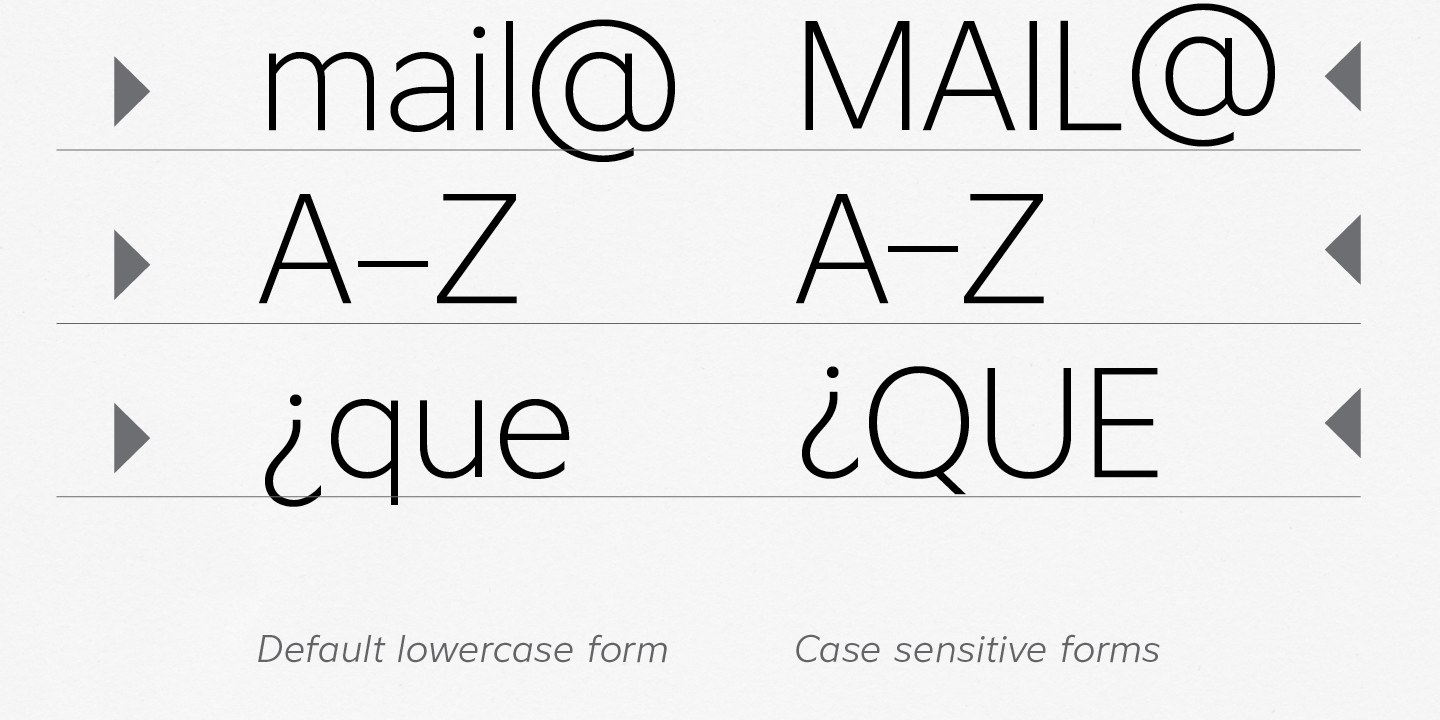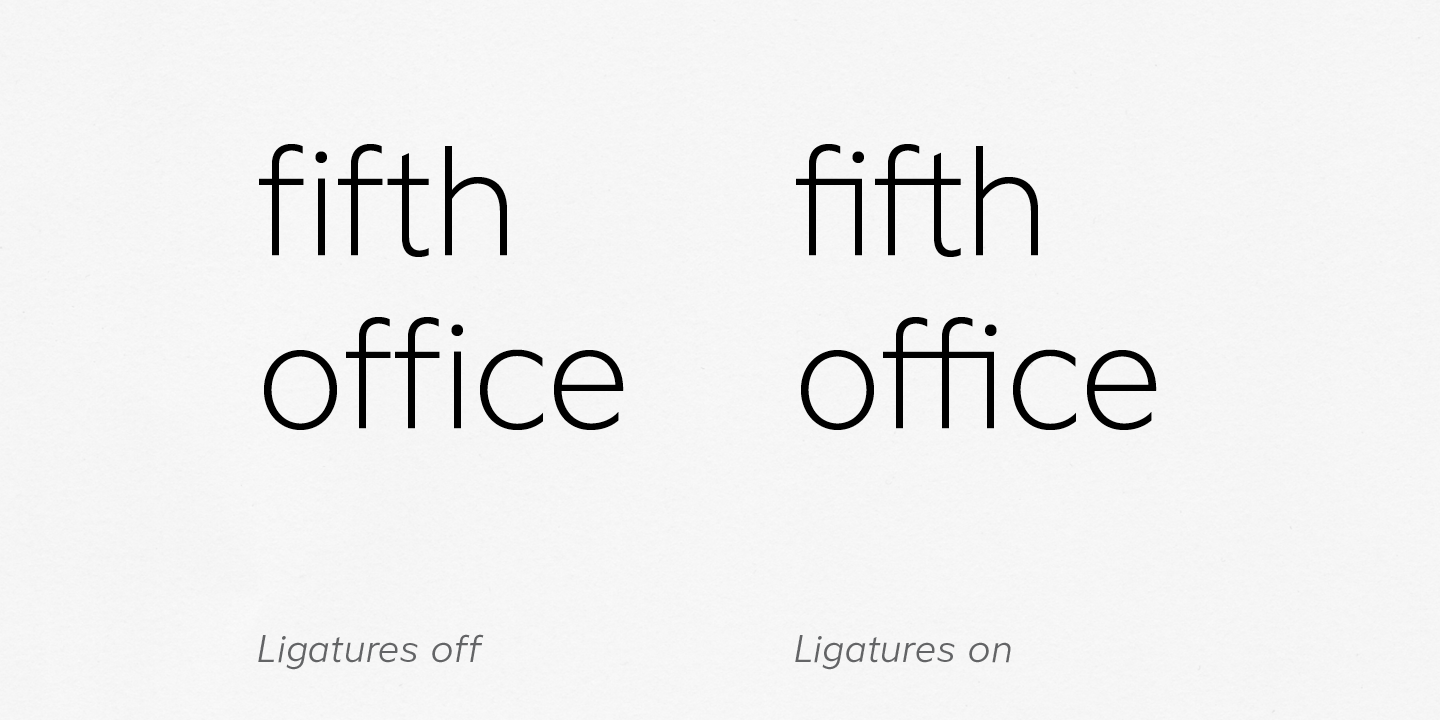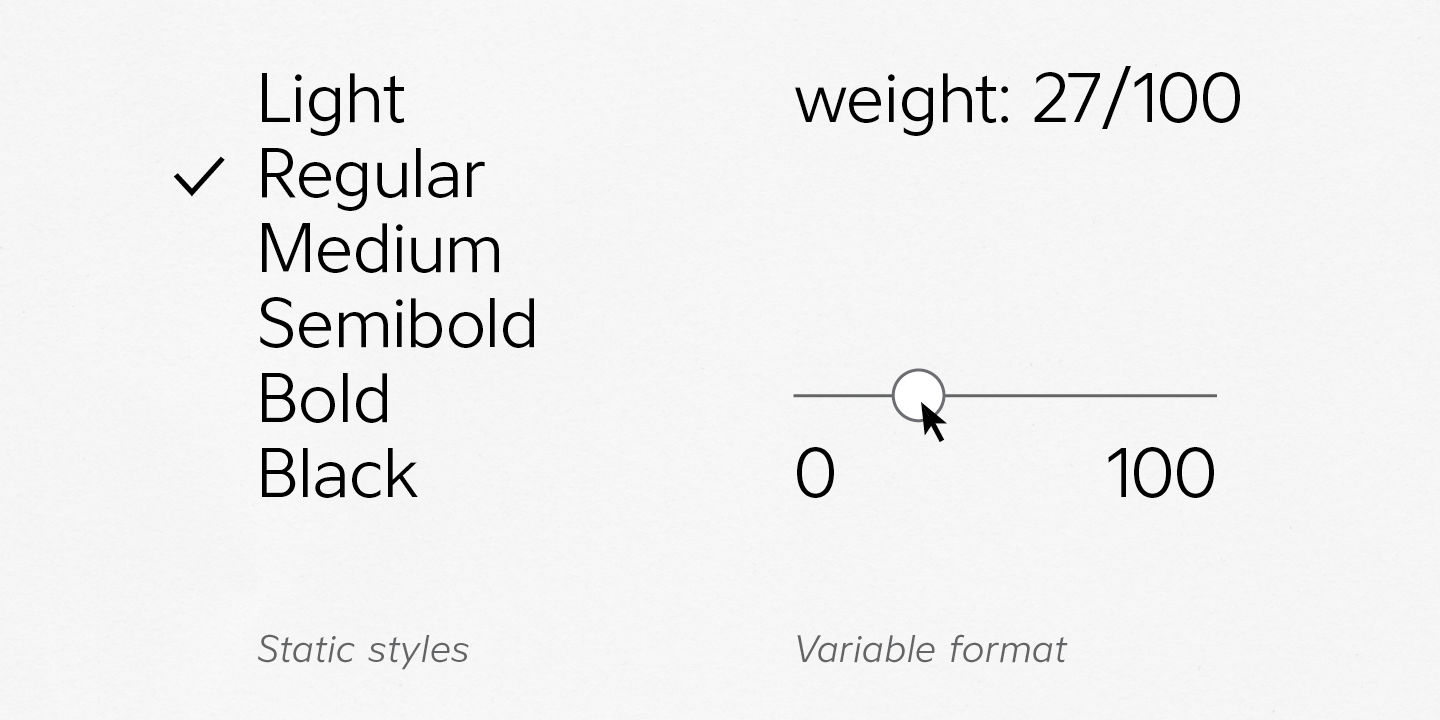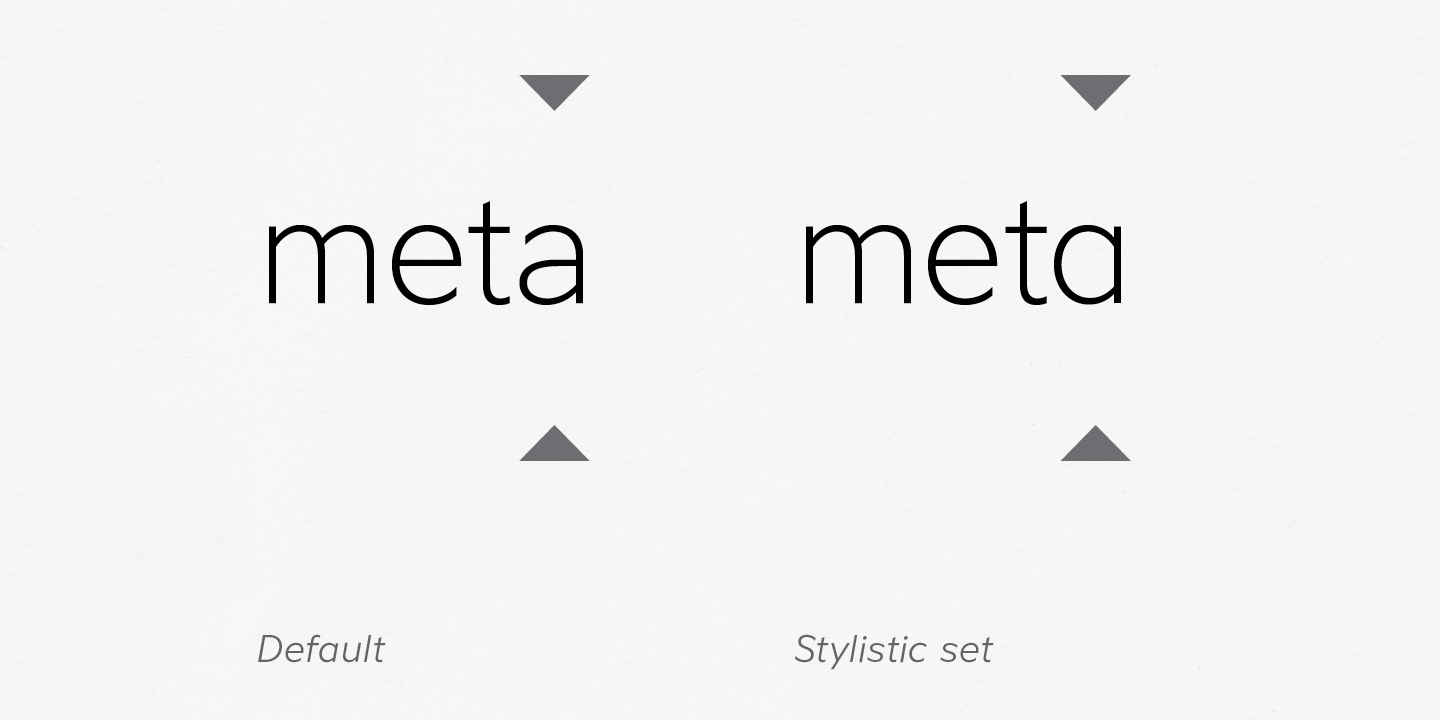
What are open type features in the font? And how to activate them.
A font file can include a few extended, hidden functions, these are OpenType features. They help organize text information more effectively, and which ones are useful depends on your needs and aesthetic preferences. First, the font itself has to include OpenType features. If it does, here’s how to turn them on. Look at these examples.
1. Tabular figures
2. Stylistic set
Good for orientation in the list of numbers. OFF/ON.
Choice of the letter ‘a’ double story/letter ‘a’ single story. DEFAULT/STYLISTIC SET
Activation in Adobe InDesign:
Main menu / Type / Character / Open type / ▸ Tabular figures
Activation in Adobe InDesign:
Main menu / Type / Character / Open type / Stylistic sets / ▸ Set 01
3. Uppercase hyphen, endash, at, question down ¿ and more
4. Variable font
Geometric centre alignment for lowercase and uppercase. CASE OFF/CASE ON
OFF – static styles/ON – choice of style from a whole typeface scale
Activation in Adobe InDesign:
Main menu / Type / Character / ▸ All caps
Activation in Adobe Illustrator:
Main menu / Type / Character / ▸ Variable Font (icon next to type style)
5. Ligatures
Good for fluent text. OFF/ON
Activation in Adobe InDesign:
Main menu / Type / Character / ▸ Ligatures